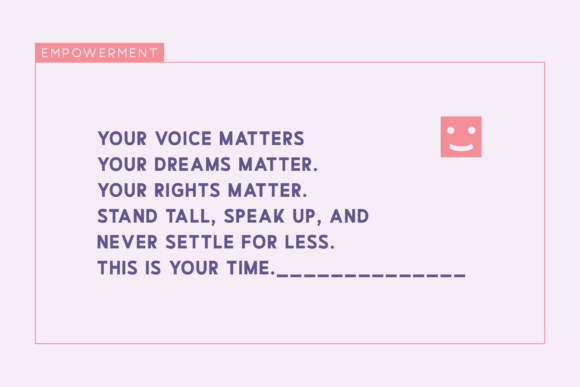
Introducing Housethin – A Modern Sans Serif Typeface
In the world of typography, a font can make all the difference in the success of a design project. A well-crafted typeface can elevate a brand’s identity, convey its message, and leave a lasting impression on its audience. This is where Housethin comes in – a bold, all-caps sans serif font designed specifically for the modern designer.
The Essence of Housethin
Housethin is a typeface that exudes strength and authority, thanks to its clean lines and minimalist aesthetic. Its bold, geometric structure ensures versatility, making it perfect for a wide range of design applications, from digital interfaces to high-end branding. The all-caps design emphasizes clarity and readability, making it ideal for headlines, posters, and anywhere you need your message to stand out.
Key Features of Housethin
- All-caps design for maximum impact and emphasis on clarity and readability
- Modern, minimalist style with a focus on clean lines and simplicity
- Bold, clean lines for a confident and professional look
- Ideal for branding, logos, packaging, and digital design
- Perfect for both large-scale headlines and smaller text blocks
The Benefits of Using Housethin
Housethin is perfect for brands, agencies, and designers looking to create a modern, authoritative identity. Its strong, geometric structure and bold lines make it especially suitable for:
- Tech companies looking to convey innovation and sophistication
- Corporate branding that requires a sense of professionalism and stability
- Luxury design projects where style and readability are paramount
Why Choose Housethin?
With Housethin, you can create a lasting impression on your audience. Its unique blend of modernity and minimalism makes it an excellent choice for designers looking to push the boundaries of typography. Here are just a few reasons why Housethin stands out:
- Versatility: Housethin can be used across a wide range of design applications, from digital interfaces to print materials
- Readability: The all-caps design and clean lines ensure that your message is conveyed clearly and effectively
- Impact: The bold, geometric structure of Housethin makes it perfect for headlines and titles that demand attention
How to Use Housethin Effectively
To get the most out of Housethin, here are some tips on how to use it effectively in your design projects:
- Pair it with contrasting fonts to create visual interest and hierarchy
- Use it for headlines and titles to create a strong, bold statement
- Experiment with different colors and textures to add depth and emotion to your design
The Future of Typography: Housethin and Beyond
The world of typography is constantly evolving, with new trends and technologies emerging every day. As a modern sans serif typeface, Housethin is at the forefront of this evolution, offering a fresh perspective on what a font can do. Whether you’re a seasoned designer or just starting out, Housethin is an excellent choice for anyone looking to push the boundaries of typography.
In conclusion, Housethin is a bold, modern sans serif typeface that is perfect for designers looking to create a strong, authoritative identity. With its clean lines, minimalist aesthetic, and all-caps design, Housethin is ideal for a wide range of design applications, from branding and logos to digital interfaces and print materials. Stand out with Housethin – a typeface built to make an impression.